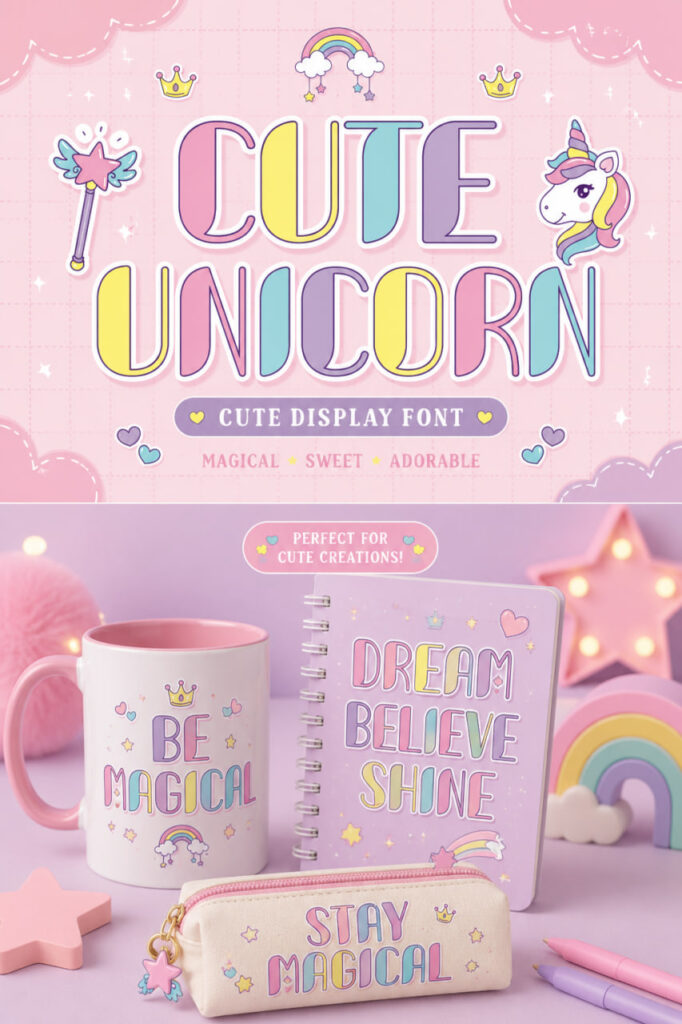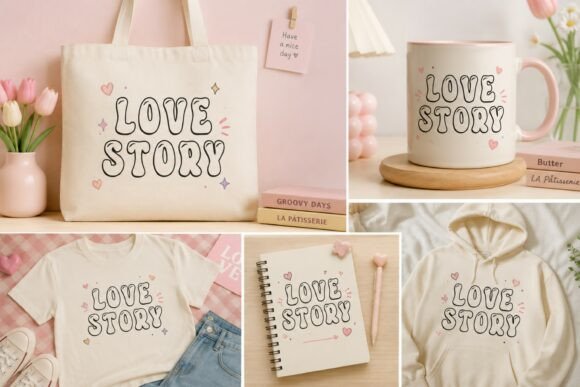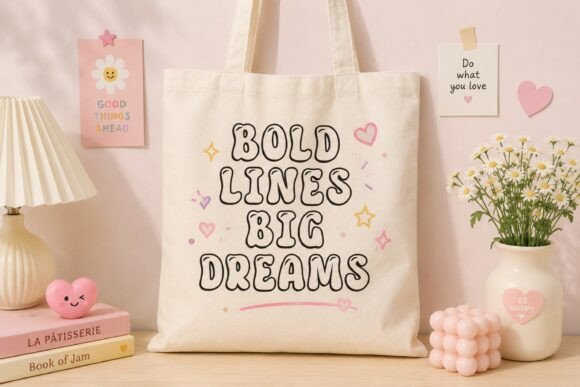
12 Cute Display Fonts Every Designer Will Fall in Love With
There’s something undeniably delightful about cute display fonts — they bring warmth, personality, and instant charm to even the simplest design. In this collection, I’m sharing 12 handpicked typefaces that every designer will fall in love with, each one bursting with its own playful character and creative potential. From bubbly, hand-drawn letterforms to whimsical brush-style scripts, these fonts are perfect for anyone who wants their branding, packaging, invitations, or social media graphics to feel a little more fun and a lot more memorable. Whether you’re designing for kids, crafting a cheerful logo, or just love a touch of whimsy in your work, this roundup has something to spark your next big idea.
Cute Balloon Font
There’s something instantly joyful about a display font that looks like it was drawn with a marker and a big smile. That’s exactly the feeling I get every time I open Cute Balloon Font — those puffy, rounded letters remind me of actual balloons bobbing at a birthday party, and the hand-drawn outline style gives it this playful, almost squishy charm. I love how the little highlights on each letter add just enough dimension to make the font feel alive without ever losing that clean, bold silhouette that makes text easy to read from across a room or a screen.
What really won me over is how versatile this font turned out to be once I started putting it to use. It’s the kind of typeface that just works — on a nursery wall print, a stack of birthday invitations, a set of stickers, or even a coloring-friendly t-shirt design, since the open outlines are practically begging to be filled in with color. I’ve been pairing it with pastel palettes for classroom materials and kawaii-style social media graphics, and it never fails to add that soft, huggable warmth. If you’re hunting for a display font that feels handmade, fun, and endlessly adaptable for Cricut or Silhouette crafting, this one deserves a spot in your toolkit.
Cute Gallery Font
Scrolling through my font library, Cute Gallery is one I keep coming back to whenever a project needs a little extra sparkle. As a cute display font, it strikes that perfect balance between bubbly and polished — the smooth, rounded letterforms feel friendly and approachable, but there’s a confidence to the shapes that keeps everything looking intentional rather than childish. It’s the kind of typeface that makes even a quick sticker design or a party invite feel thoughtfully put together.
My favorite part is how effortlessly it adapts across completely different projects. One day I’m using it for a bakery logo that needs to feel warm and inviting, and the next I’m dropping it into classroom decorations or a colorful product packaging mockup — and it holds its charm every single time. If you’re building out branding, greeting cards, or handmade craft designs and want a font that brings instant personality without trying too hard, Cute Gallery is a genuinely delightful pick to have in your toolkit.
Cute Unicorn Font
Every so often a font comes along that just radiates good energy, and Cute Unicorn is exactly that kind of find. This cute display font has such a genuine, whimsical charm to it — the letterforms feel light, bouncy, and full of character, almost like they’re sprinkled with a bit of magic. It’s the sort of typeface that makes you smile before you’ve even decided what to design with it, which is honestly rare.
I’ve found it especially fun to work with on anything aimed at kids or classrooms, since the playful spirit of the letters pairs so naturally with educational materials, worksheets, and party décor. There’s an authenticity to the design too — it doesn’t feel forced or overly cutesy, just genuinely cheerful and easy to fall in love with. If your next project could use a touch of enchantment and radiant charm, Cute Unicorn is a wonderful font to reach for.
Cute Cat Font
There’s a certain elegance to Cute Cat that caught my attention the moment I laid eyes on it. Unlike a lot of playful typefaces, this cute display font leans into intricate curves and floral-inspired flourishes, giving it a beauty that feels genuinely unique rather than just decorative. Each letter has this delicate, almost storybook quality, yet it never loses its boldness — it’s a lovely reminder that “cute” doesn’t have to mean simple.
Working with this font, I’ve noticed how naturally it elevates anything it touches, especially invitations and branding projects that need to make a memorable first impression. Those whimsical, flourish-heavy details give posters and stationery a handcrafted, almost vintage charm, while still standing out with real presence on the page. If you’re after a font that’s equal parts delicate and striking, Cute Cat brings a rare kind of character to the table.
Bigfoot Cute Font
Okay, I’ll admit it — the moment I saw those shaggy, hairy letterforms, I couldn’t help but grin. Bigfoot Cute Font takes the idea of a cute display font in a totally different direction, leaning into comic-style charm with a playful, almost furry texture that gives every letter a fun cartoon personality. It’s silly in the best way, the kind of design detail that makes people stop and smile before they’ve even read the words.
What surprises me is how well this quirky, hairy style actually holds up across serious design work too — I’ve used it for branding and logo concepts where a brand wants to feel approachable and fun, and it delivers that instantly. Beyond that, it’s a natural fit for kids’ t-shirts, food packaging, and children’s book covers, where that cartoonish, larger-than-life energy really gets to shine. If your project calls for a display font with a bit of comic flair and a whole lot of personality, Bigfoot Cute is a genuinely fun choice.